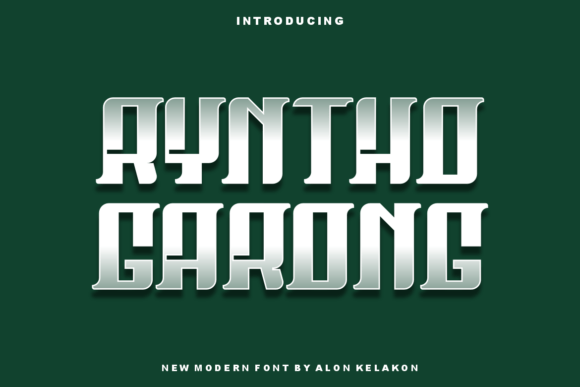
Embrace the Boldness: Unveil Ryntho Garong, the Slab Serif Font That Commands Attention
In a world of conventional typography, Ryntho Garong emerges as a defiant rebel, a slab serif font that breaks the mold with its indomitable spirit. Its thick, robust strokes exude an air of authority, while its sharp, angular serifs add a touch of sophistication, creating a visual symphony that captivates and compels.
Step into a Realm of Possibilities: Unleash Your Creativity with Ryntho Garong
Ryntho Garong is a font that knows no boundaries, a versatile chameleon that adapts seamlessly to a myriad of design endeavors. Whether you seek to craft eye-catching logos that leave an indelible mark, design posters that ignite imaginations, or create movie titles that resonate with cinematic grandeur, Ryntho Garong is your steadfast companion. Its bold presence commands attention on clothing, transforming ordinary garments into canvases of artistic expression. From labeling products with a touch of distinction to adorning album covers with a hint of musical rebellion, Ryntho Garong is the font that breathes life into your creative visions.
Immerse Yourself in a Typographic Masterpiece: Discover the Allure of Ryntho Garong
With Ryntho Garong, the mundane becomes extraordinary, the ordinary transformed into the captivating. Its bold strokes dance across the page, creating a visual rhythm that draws the eye and captivates the senses. Experience the thrill of crafting movie scenes that transport audiences to new worlds, where the font's bold presence amplifies the emotional impact of every scene. Let Ryntho Garong be the guiding light in your typographic endeavors, illuminating your path to greatness with its undeniable charisma and undeniable charm.